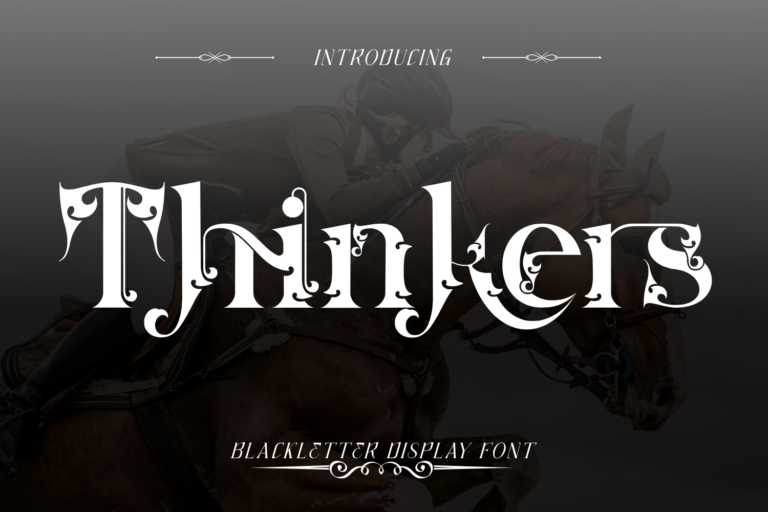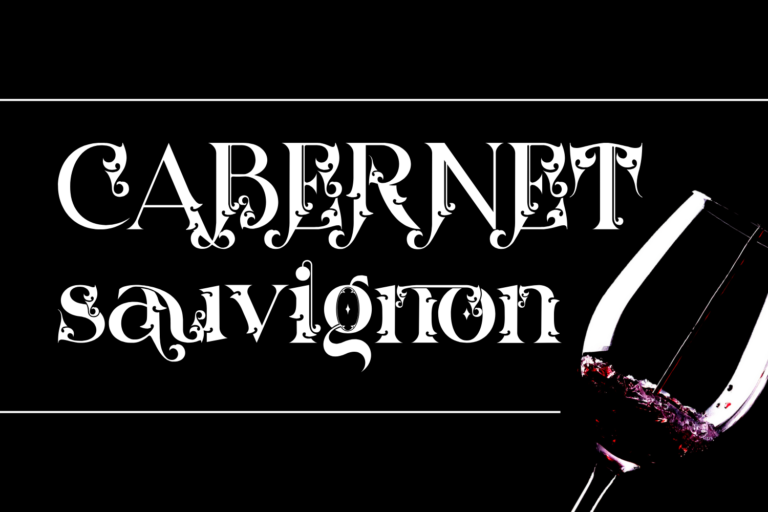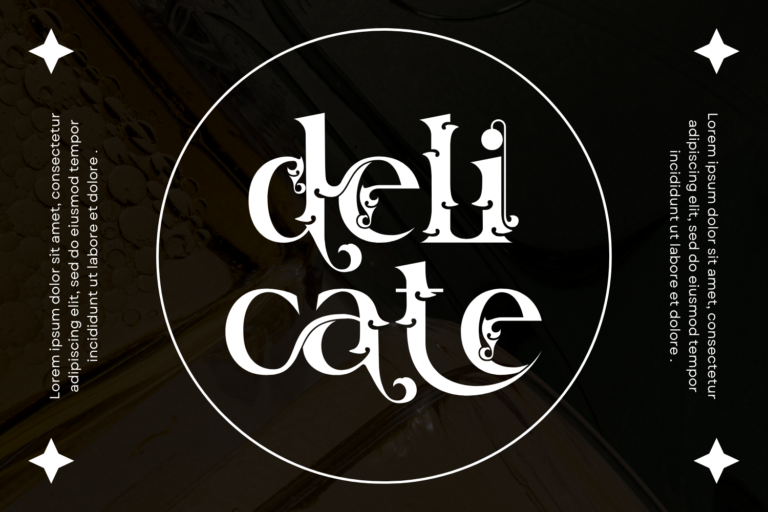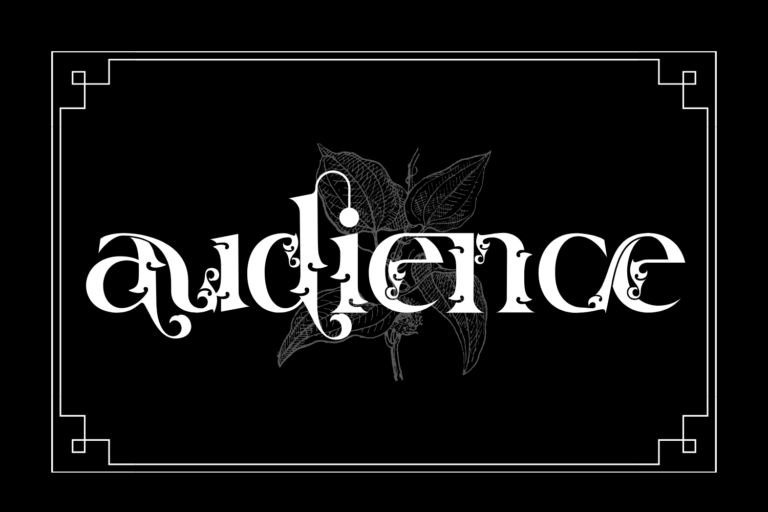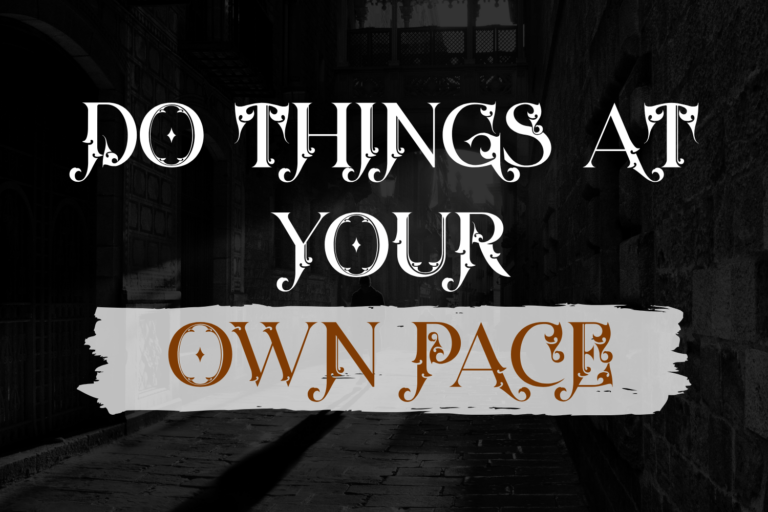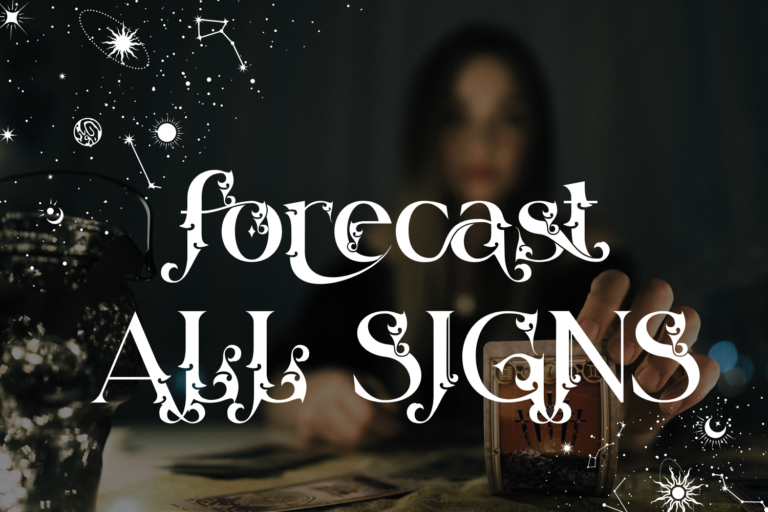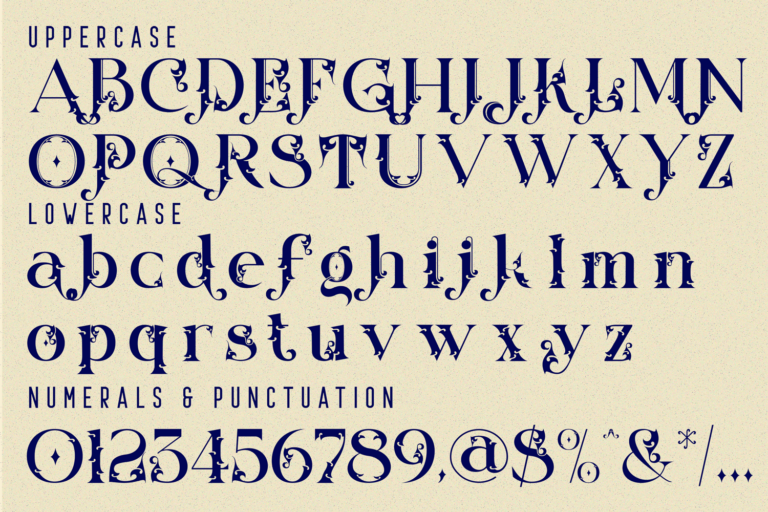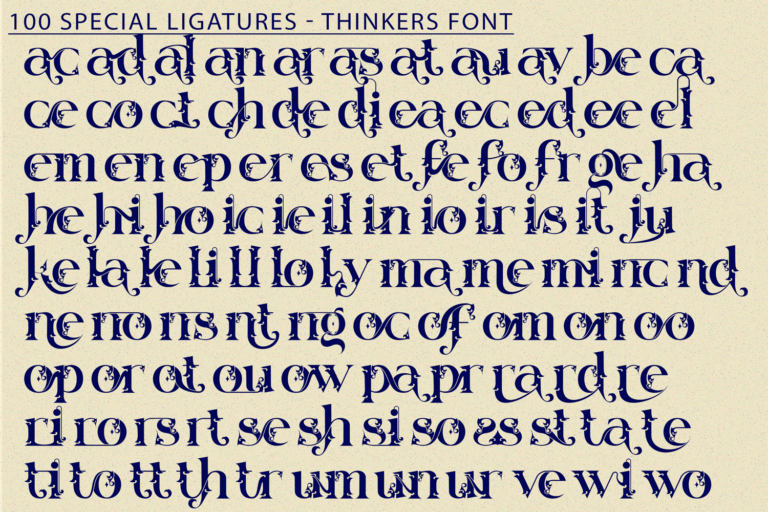
Thinkers – Ornamental Font is a refined and ornamental serif display font designed for thinkers, dreamers, and storytellers. With its elegant curves and artistic flourishes, this typeface merges classical aesthetics with a contemporary edge. The font’s high contrast strokes, decorative terminals, and carefully crafted ligatures make it a powerful choice for book covers, editorial headlines, fashion branding, or luxury logos that seek to convey wisdom, tradition, and visual sophistication.
Features:
• Uppercase & Lowercase Letters
• Over 100 Hand-Crafted Ligatures
• Numerals & Full Punctuation Set
ac ad al an ar as at au av be ca ce ch co ct de di ea ec ed ee el em en ep er es et fe fo fr ge ha he hi ho ie ic il in io ir is it ju ke la le li ll lo ly ma me mi nc nd ne ng no nt ns oc of om on oo op or ot ou ow pa pr ra rd re ri ro rs rt se sh si so ss st ta te th ti to tr tt um un ur ve wi wo
Thinkers – Ornamental Font